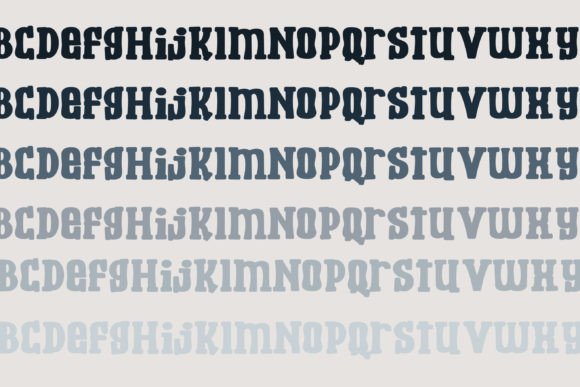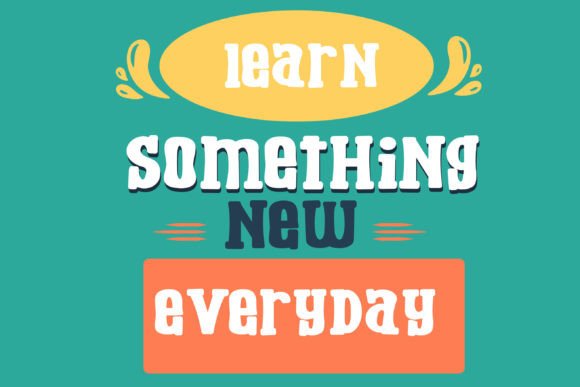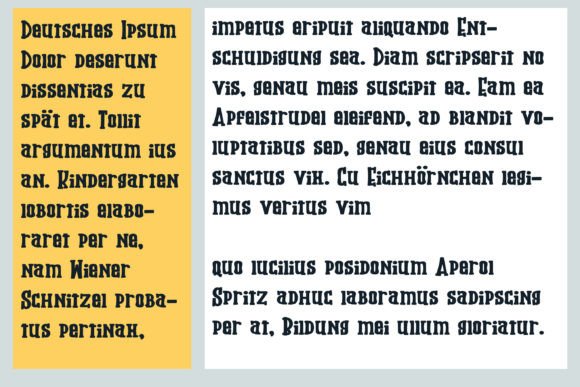
Introduction to Nincaboodle Font
Have you ever stumbled upon a font that makes you smile? For designers, that ‘aha’ moment is priceless. It’s the spark that sets creativity ablaze, and the Nincaboodle Font is one such treasure. This whimsical and quirky display font is a high-quality design resource that will leave you and your audience delighted.
With its unique letterforms dancing with creativity, Nincaboodle Font is a perfect choice for artistic projects, playful designs, and even free downloads with transparent backgrounds. Its dynamic style adds a touch of fun and charm to any artwork, branding, or packaging, making it a valuable asset for designers.
Whether you’re working on a creative project or need a design boost, Nincaboodle Font is sure to inspire you. In this article, we’ll dive into the world of this quirky font, exploring its features, uses, and why it’s a must-have in your design toolkit.
Key Features of Nincaboodle Font
- Unique, bold font style with transparent background
- Perfect for use in graphic design, digital art, and print materials
- Easy to use and customize with various design software
Honest Review: Nincaboodle Font
As a designer, I’m always on the lookout for high-quality design resources to elevate my creative projects. The Nincaboodle Font is a great addition to my arsenal, offering a unique and stylish aesthetic that’s sure to make my designs stand out.
- ✨ Unique and stylish aesthetic
- ✨ Versatile and suitable for various design projects
- ✨ Transparent background for custom design elements
However, I do have a few limitations with the Nincaboodle Font. For one, it’s a bit limited in terms of character sets, which may be a concern for designers who need to create complex text-based designs. Additionally, the font may not be suitable for small text sizes, as it can become difficult to read.
Overall, the Nincaboodle Font is a solid addition to any designer’s toolkit. While it may have some limitations, its unique aesthetic and versatility make it a great resource for creative projects. I’d definitely recommend it to designers who are looking for a high-quality font that’s easy to use and customize.
Tips for Getting the Most Out of Nincaboodle Font
Experiment with different font sizes, colors, and effects to get the most out of the Nincaboodle Font. You can also combine the font with other design elements to create a unique and eye-catching design.
Common Use Cases for Nincaboodle Font
The Nincaboodle Font is perfect for a variety of design projects, including logos, posters, business cards, and social media graphics. Its high-quality design makes it a valuable resource for designers and non-designers alike.